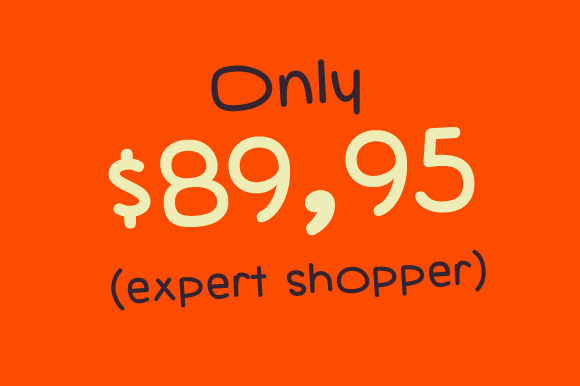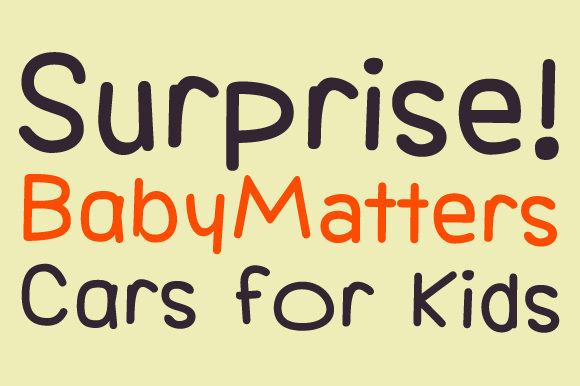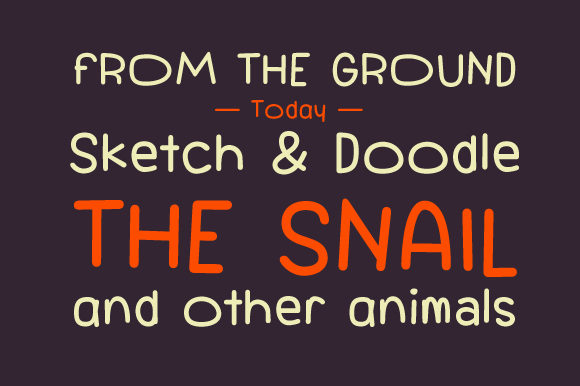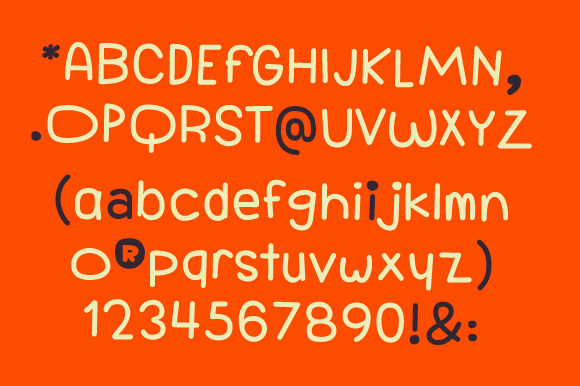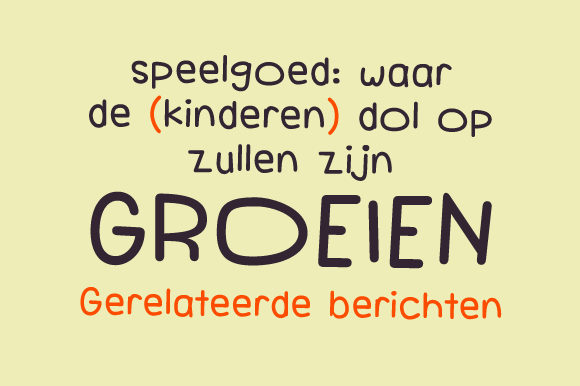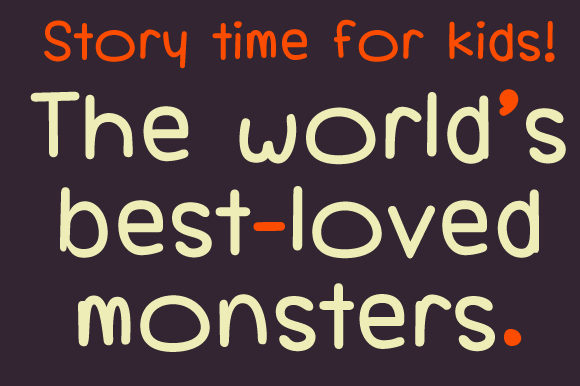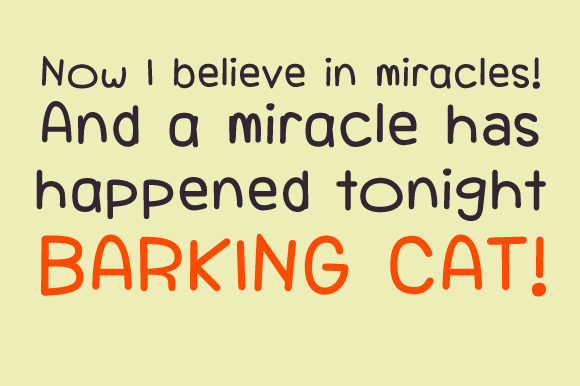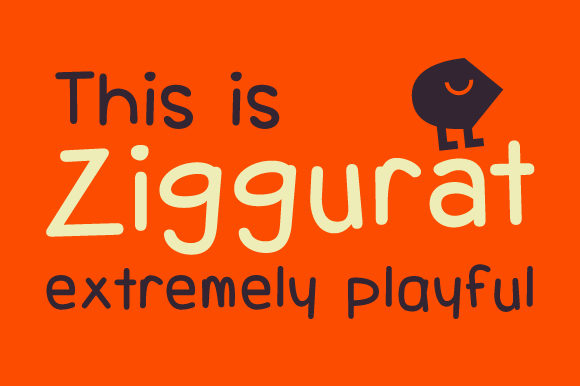
Ziggurat Font
About Ziggurat Font
Ziggurat is an incredibly cute and simple handwritten font. Friendly and neat, this font can be used for various purposes such as logos, wedding invitations, headings, t-shirts, letterhead, signage, labels, news, posters, badges and so much more.